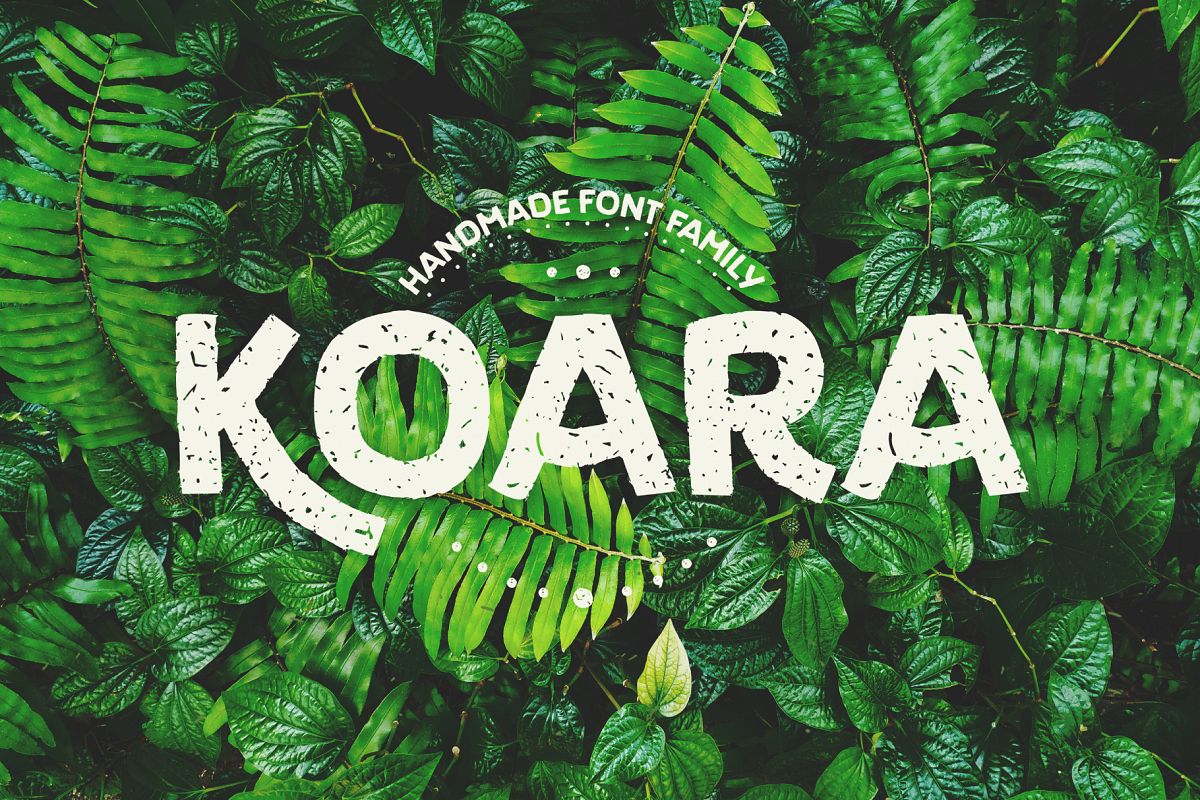
Koara
Koara is a handmade font family inspired by nature. It's composed of two
versions, (rough and wild) and available in the weights, light, regular
and bold, with an alternative capital K, linear lowercase and capital
numbers. It's recommended for large titrations, small paragraphs,
typographic compositions and logotype, Koara shines on several
backgrounds like leafs, jungle, nature images and even organic food.